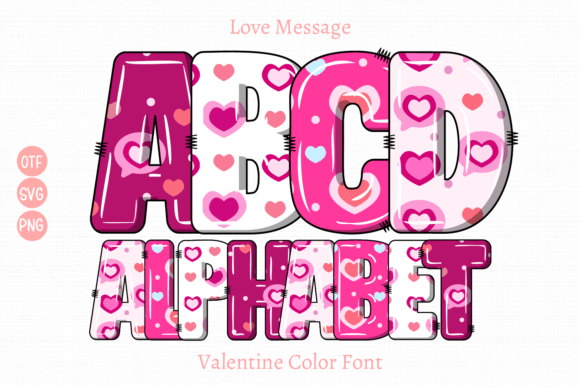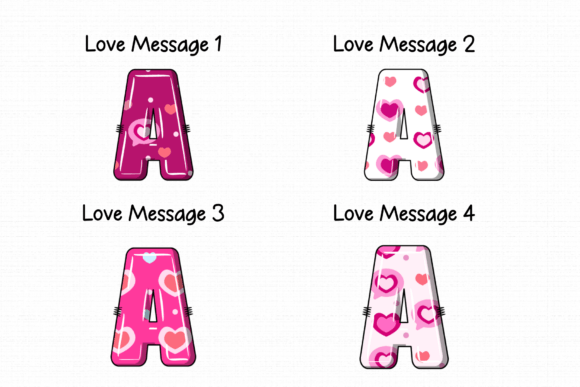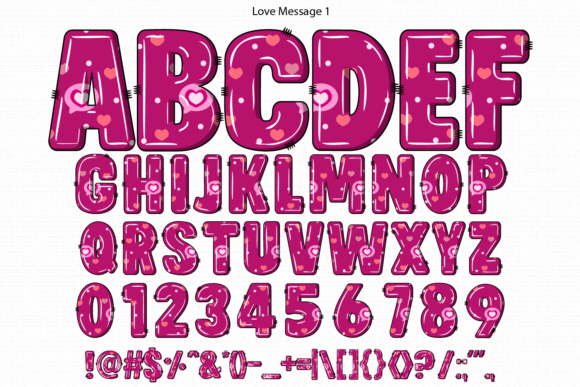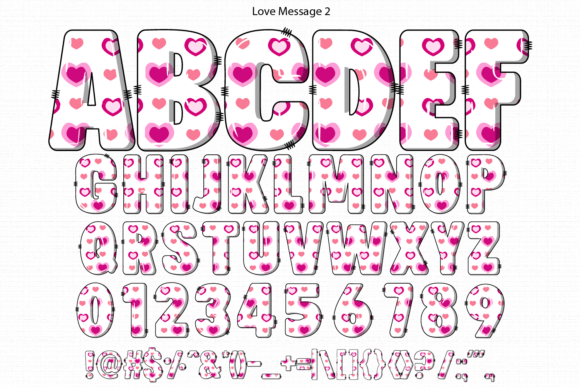
Love Message Font: A Cute Valentine’s Day Display Font
About the Love Message Font
Explore the possibilities with Love Message Font, a font that offers both beauty and functionality. Introducing Love Message, your quintessential Valentine’s Day color font that resonates with a spirit of fun and authenticity. This versatile typeface is an ideal match for a myriad of your adored projects, from enhancing your logos and branding to sprucing up your blog posts. Its unique charm exudes a romantic flair perfect for revitalizing invitations, greeting cards, or making your planners and photo albums stand out. For a hint of festive liveliness in decorations or any other design endeavor, Love Message is just the font to elevate your visuals. Delight in the stunning results it brings to your creations!